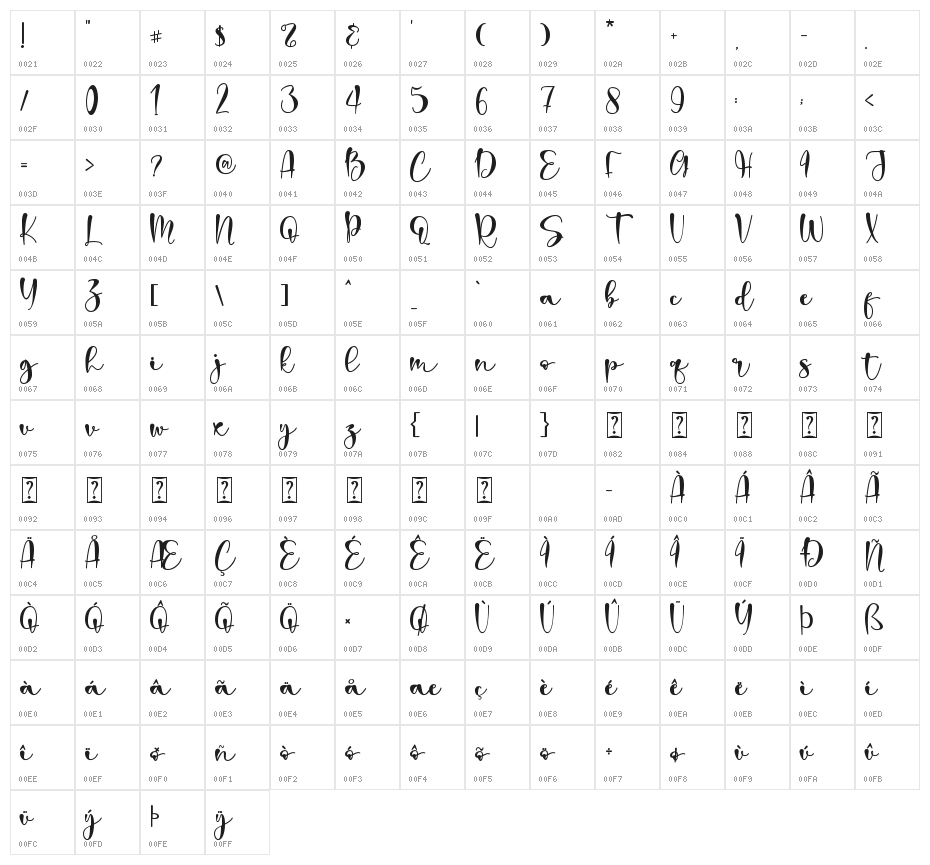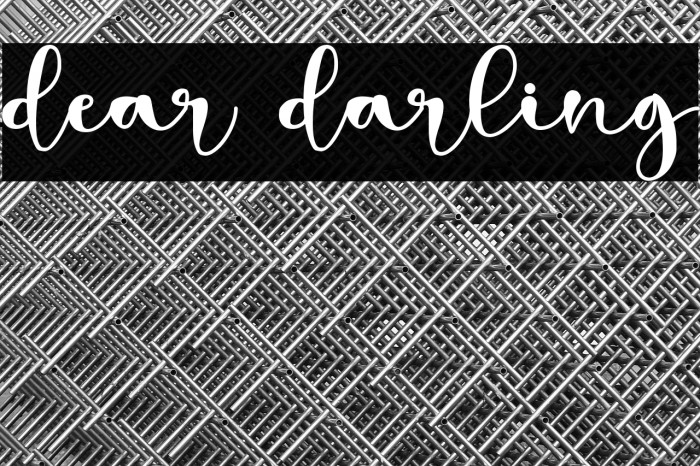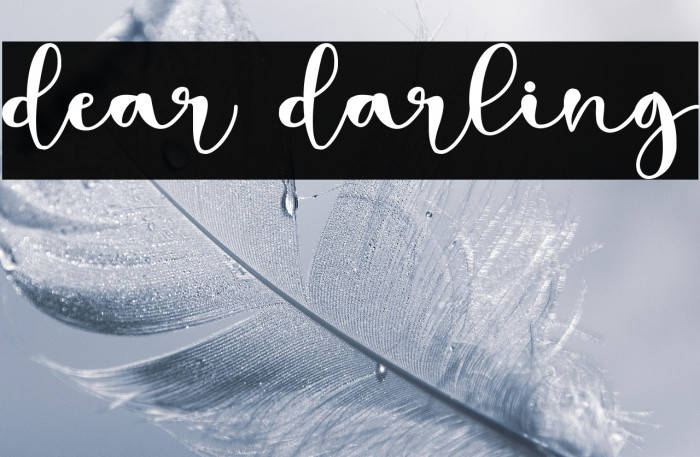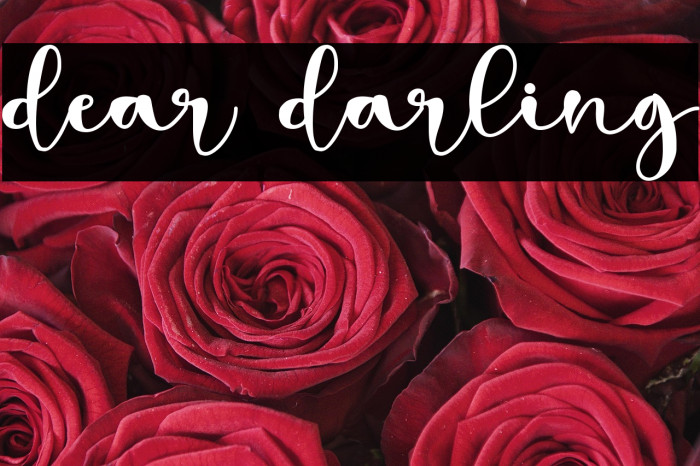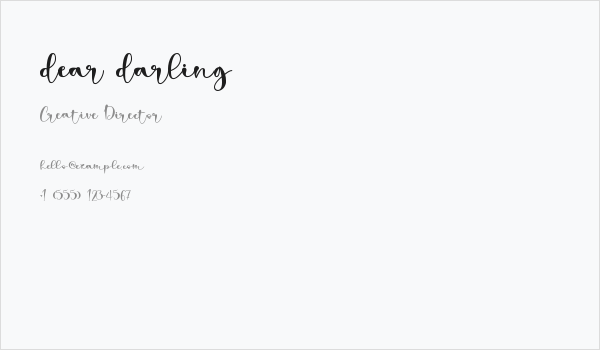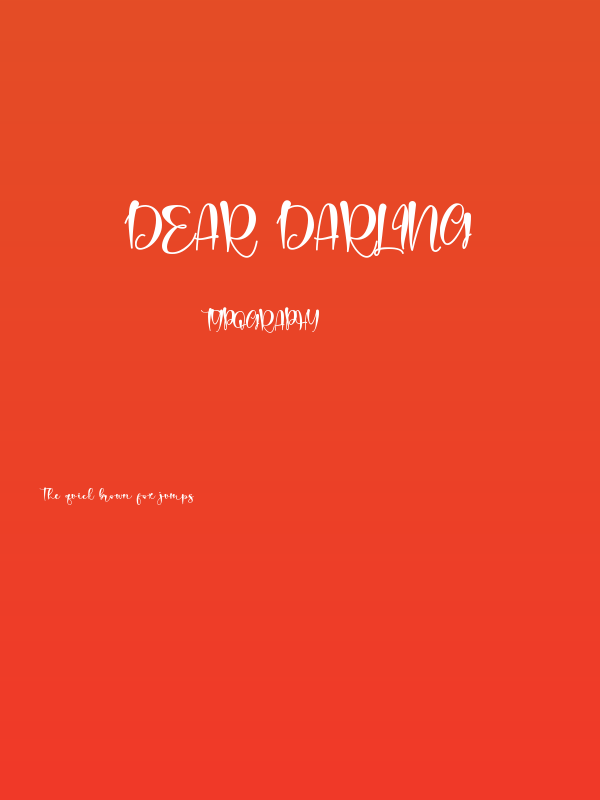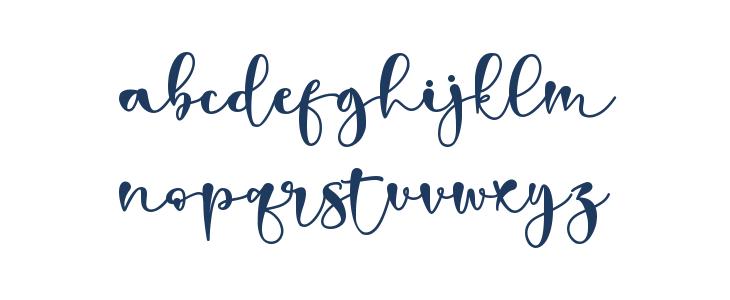
dear darling Font
dear darling Description
This font features a playful and elegant script style, characterized by its flowing, cursive letters that exude a sense of charm and sophistication. The uppercase letters are bold and expressive, with dramatic loops and flourishes that add a whimsical touch. The lowercase letters maintain a consistent flow, with smooth connections and rounded forms that enhance readability. The numerals are equally stylish, maintaining the same fluidity and decorative flair. Special characters are thoughtfully designed to match the overall aesthetic, ensuring a cohesive look across all text. This font is perfect for adding a personal, handwritten feel to any project.
| Use Case | Logos, Invitations, Headlines |
| Proposed Projects | Ideal for wedding invitations, greeting cards, branding, and social media graphics. |